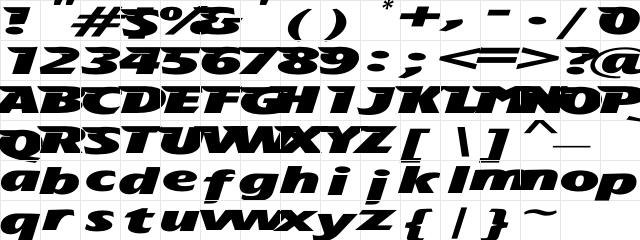
LHF Brien Regular
| Foundry | Gary Godby for Letterhead Fonts |
Design Context for LHF Brien Typeface
LHF Brien is a composed and adaptable typeface that performs quietly and consistently across a wide range of design contexts.